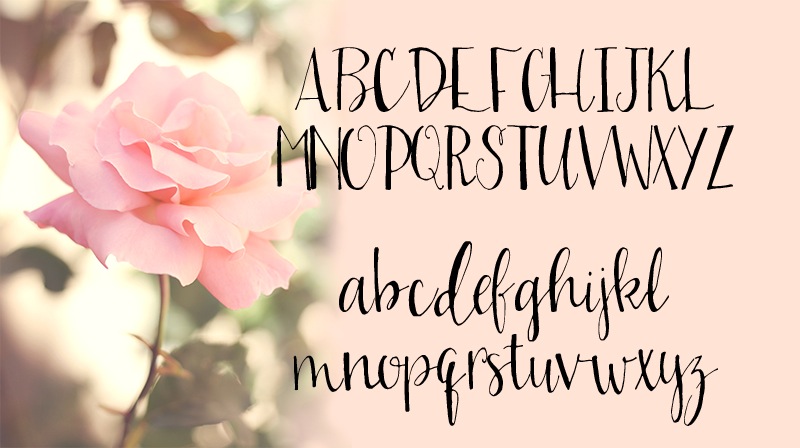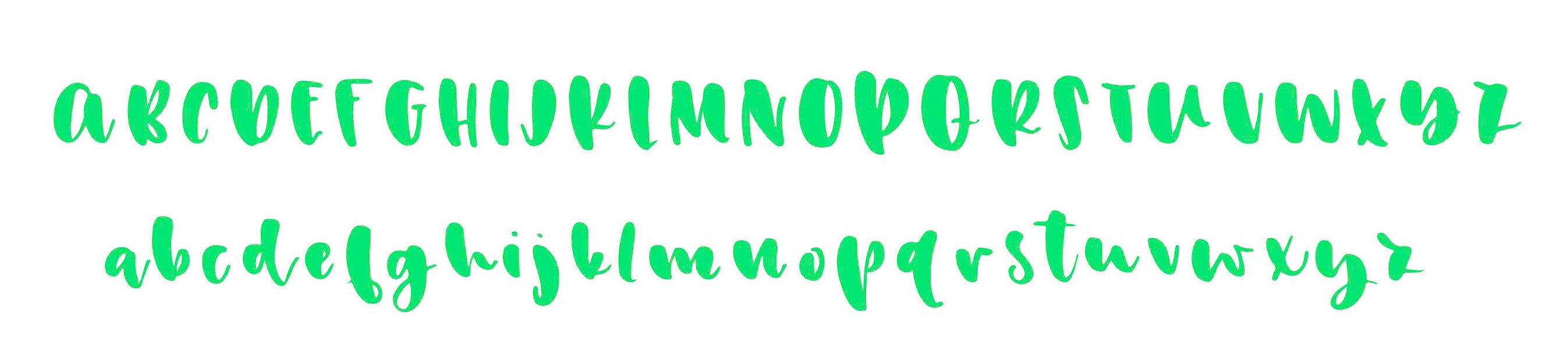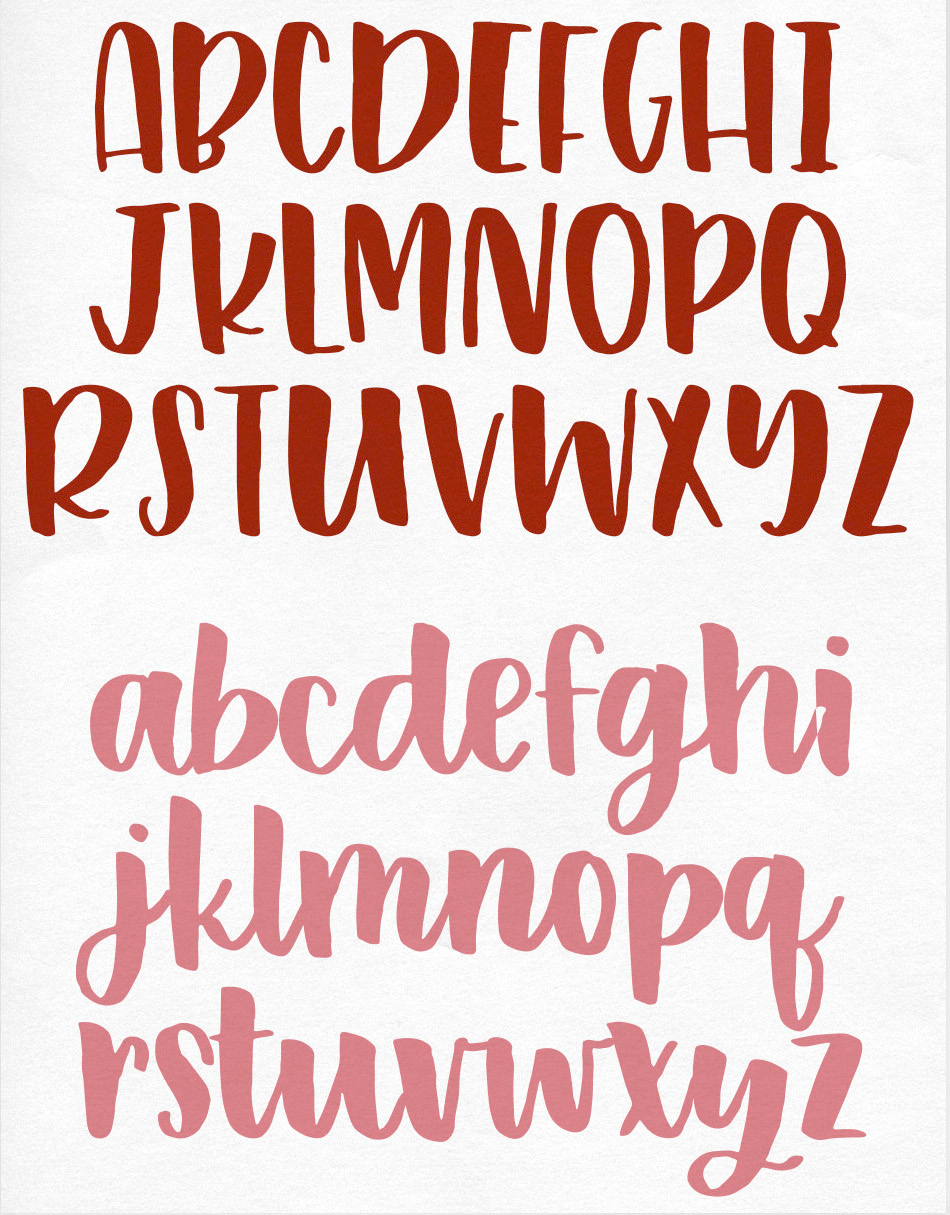
On The Spot Studio [Tiffany Willett]
Kentucky-based designer of great script, poster and hand-drawn typefaces that are sold via Creative Market. Typefaces from 2014 include Violet Simple, Bren, Keke, Starburst, Stilt, Hadley Script, Gracyn, Heather Small Caps, Eloise, Porter, Milly, Sweetheart, Angelika, Elliot, Praline, Joplin, Rachel, Briar Rose, Emerson, Stanley, Sarah Jane, Alice, Waterbrush, Gypsy, London, Wonderland, Willow, Fink, Bluegrass, Amy Regular & Expanded, Canteen, Oliver, Oliver Light, Oliver Extra Light, Yard Sale, Carry On, Adventure, Loxley, Everly, Werd, Trudy, Farmers Market, Ashlyn, Laurel, Free Spirit, Swan, Layla, Luck - Serif & Sans Serif, Savanna, Indigo, Jaden, Ella.
In 2013, she made Kinley, Turner, Winter, Phoebe, Rae, Kris, Tris, Whit, Emma, Jenna, Blake, Jessy, Aubrey, Juliet, Piper, Harper, Caroline, Wren, Adam Serif Font, Nora, Arwen, Emelie, Elizabeth, Eden, Lena, Aria, Sawyer, CeCe, Patsy, Jasmine, Stella, Coop, BREE, Lu, Honeysuckle, Iris, Tea Party, Paper Doll, Dewdrops, Peach Cobbler, Lucy Mixed Caps, Berry, Becca, Annabelle, Quirked.
Typefaces from 2015: Juniper, Girl Friday, Reba, Pigment (brush script), Satellite, Della (calligraphic inky script), Janney, Mia, Heidi, Dreamcatcher (watercolor brush), Wallflower, Kharisma (watercolor brush script), Cracker Jack, Brownie Pie, Cricket, Young Blood, Lorelei, Sylvia Script, Kellie, Kale, Hayden.
Typefaces from 2016: Watermelon Smile, Bachelor Pad, Olive Beret, Dallon, Rodgers, Bursta Brush, Sydalee, Nadia Script, Buckley, Serya, Imogen (Treefrog style), Girlfriend, Bittersweet, Harley Q, Ophelia, Colleen, Delilah, Freddy, Rowan, Snowcone.
Typefaces from 2017: Kinlie, Oaker, Rippely, Calliah, Novala, Silver Fox, Lolabelle, Chocolate Milk, Girl Child, Brekkie, McGee, Mazamanian, Rawwr Dinosaur, Mickelmas, Renley, Surly Teen, Nickely, Zesty Orange, Chandler Print, Rigby, Jackapple, Meraki, Eggcup, Weatherd Sweater, Lucille Rose, Birkland, Flamingo Gold, August June, Willow Market, Endless Summer, Sycophantic, Croquet Bay, Jacobie, Florrie, Quickfly, Wild Onion, Korinn, Starlite Motel (neon style), Snicket (beatnik style), Strawberry Wine (brush script), Desmond, Camisado, Gator (children's book font), Schuyler Script, Northern Downpour, Pixles (script), Carafe, Eleanor Bosch (signature script), Peony Hearts, Unicorn Letters, Bantam, Broklyn (sic), Paxton Print, Zesty Orange, Becca, Annabelle, Sweet Caroline, Faraway, Celestia, Bohemia (creamy script), Limony, Esperance, Bigtime, Blink Script, Wicket, Begrime Light, Verve Distressed, Slapdash, Carafe, Freya.
Typefaces from 2018: Shelbyville, Sushannah (monoline script), Awsten, Sherman, Custard Pie, Wyfais Script, Cuyler, Harrow, Sienna Blue, Gallie Girl, Marisol, Crinkle, Alley, Milk Tea, Sunshine Riptide, Stupid Cupid, Blackheart.